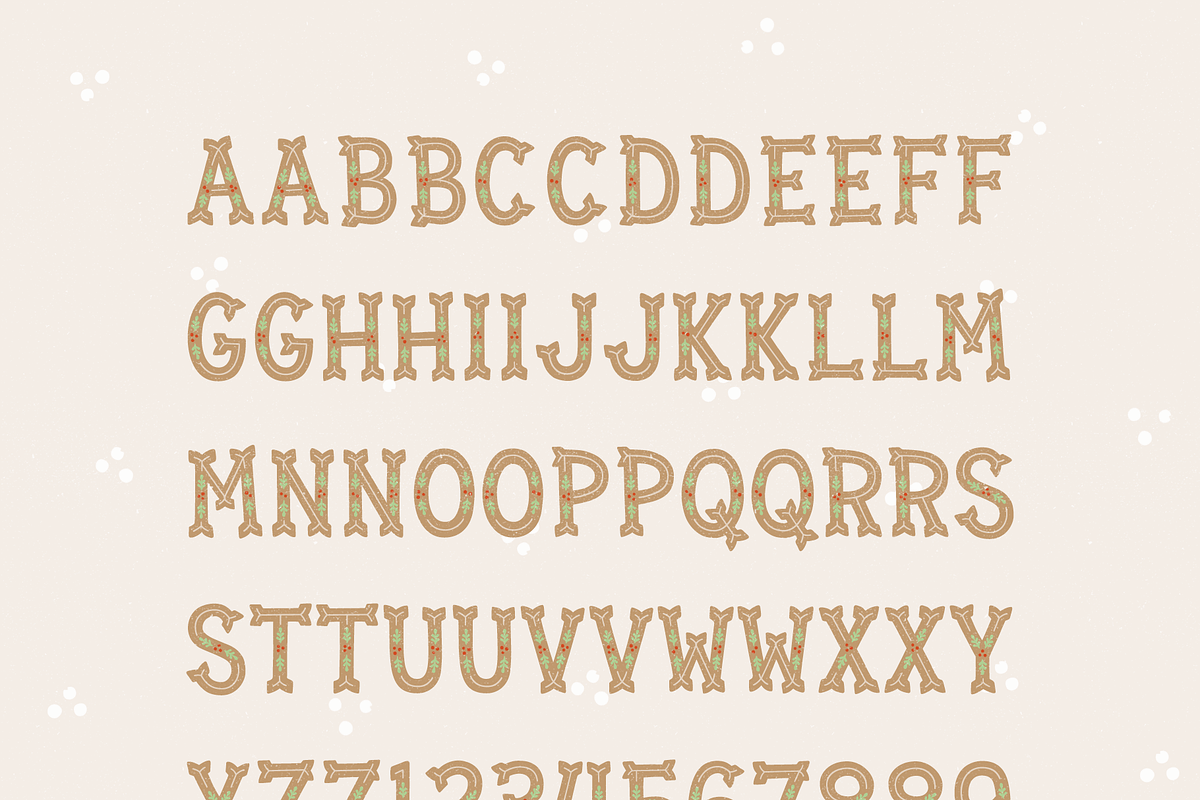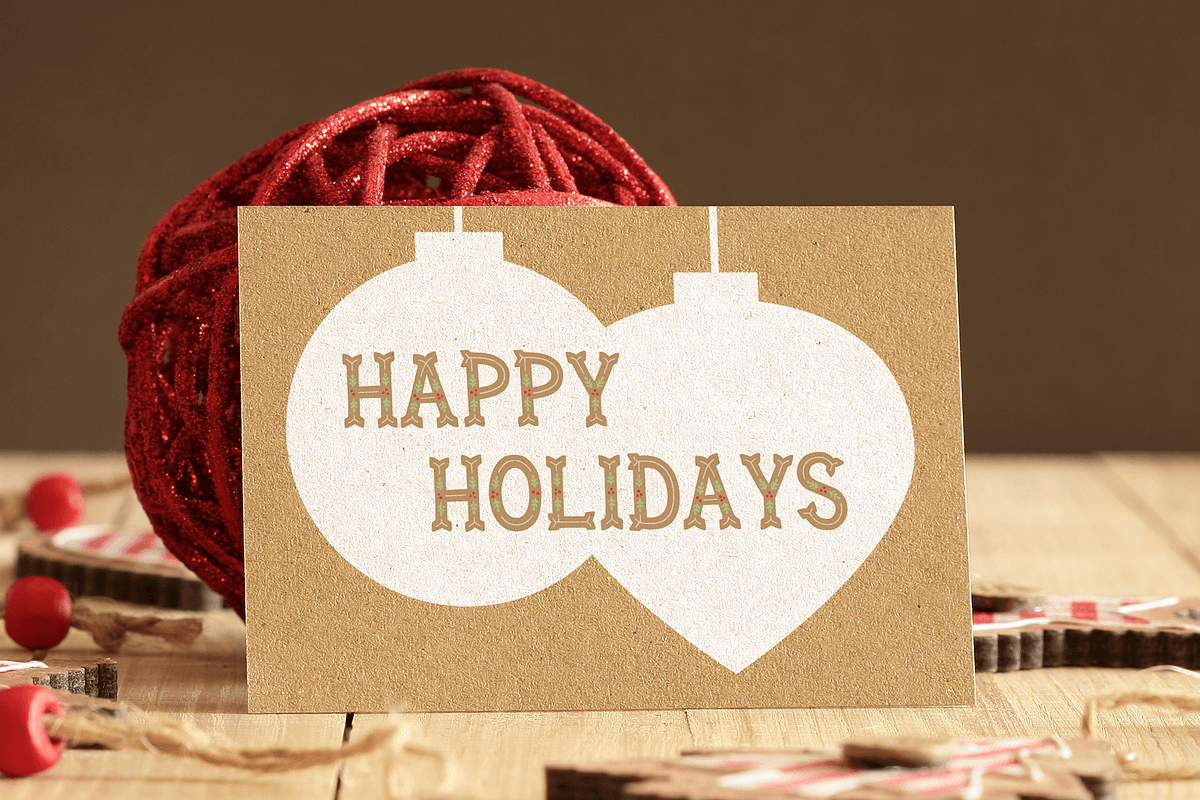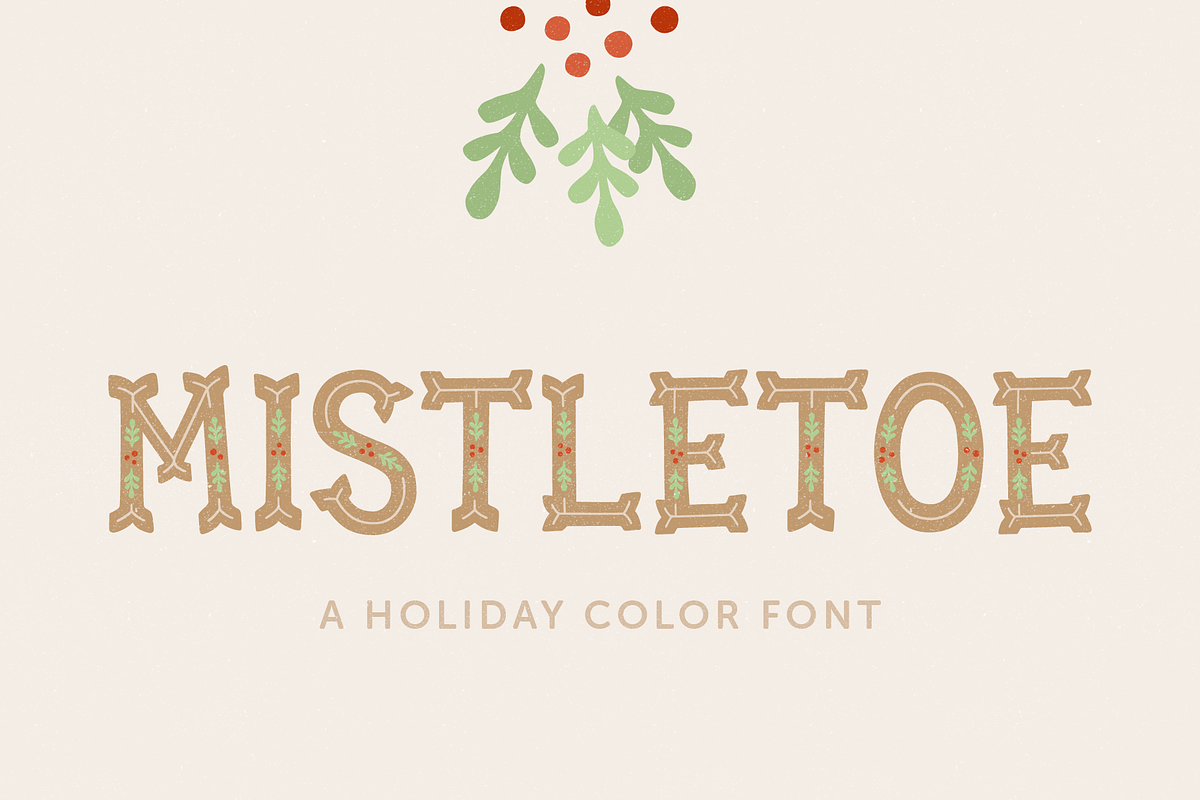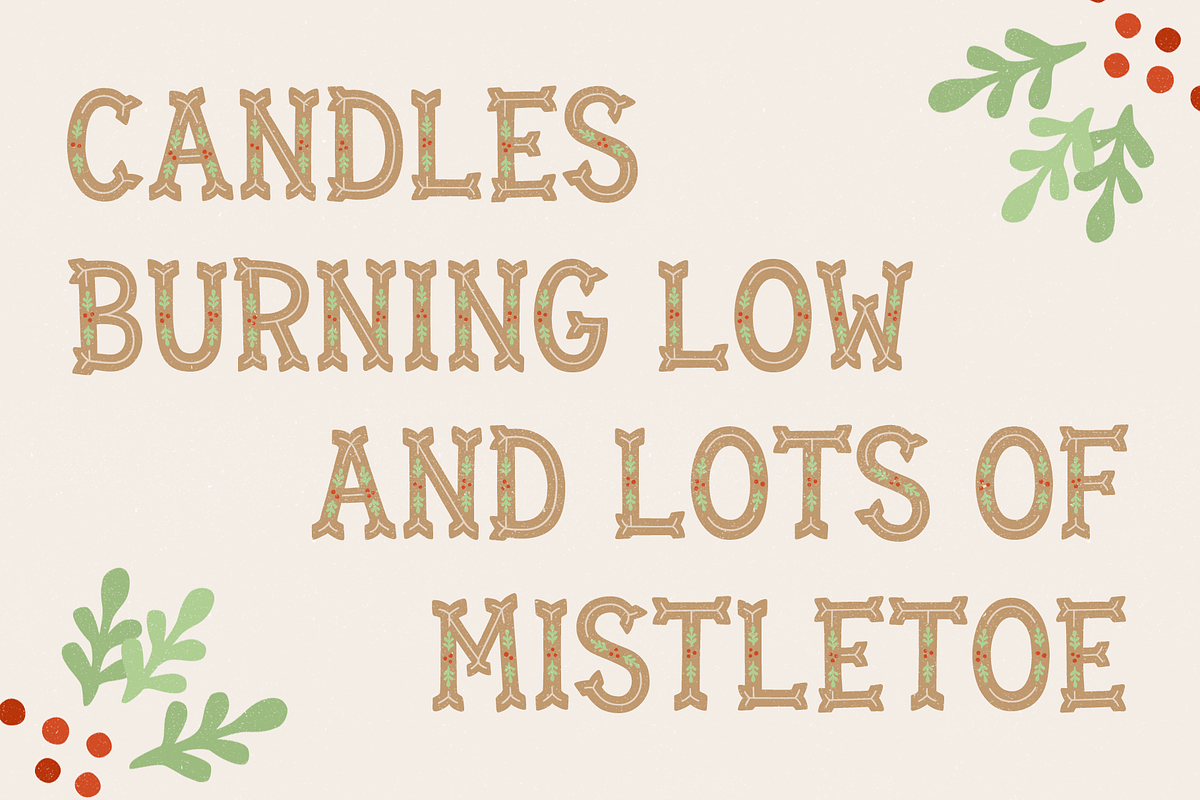
Mistletoe Color Font
Mistletoe is a mutli-colored OpenType SVG font to brighten up the holiday season. It contains hand drawn, thick serif lettering with a leaf and berry pattern inside. Since it’s an all caps font, it’s ideal for larger display blocks of text.
Font supports basic Latin and Western European diacritics.
Mistletoe Color Font by Lauren Ashpole fits naturally into Branding, posters, packaging, typography.